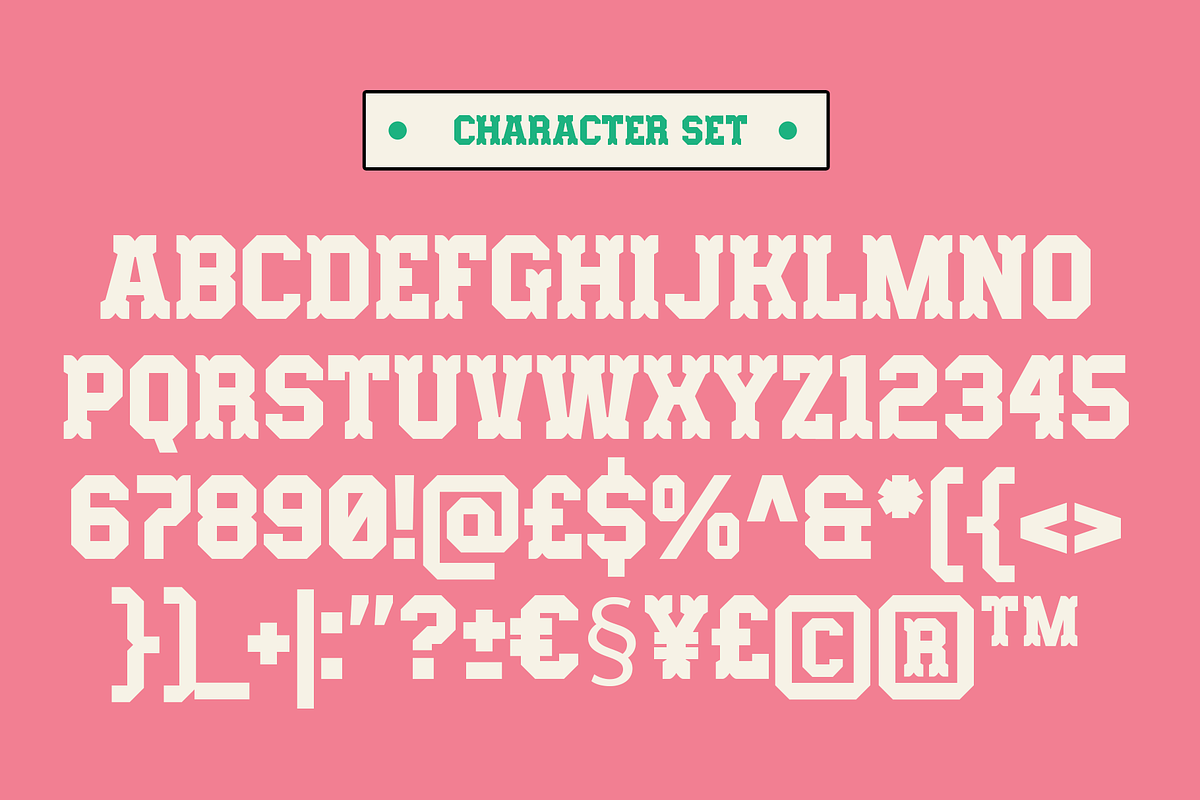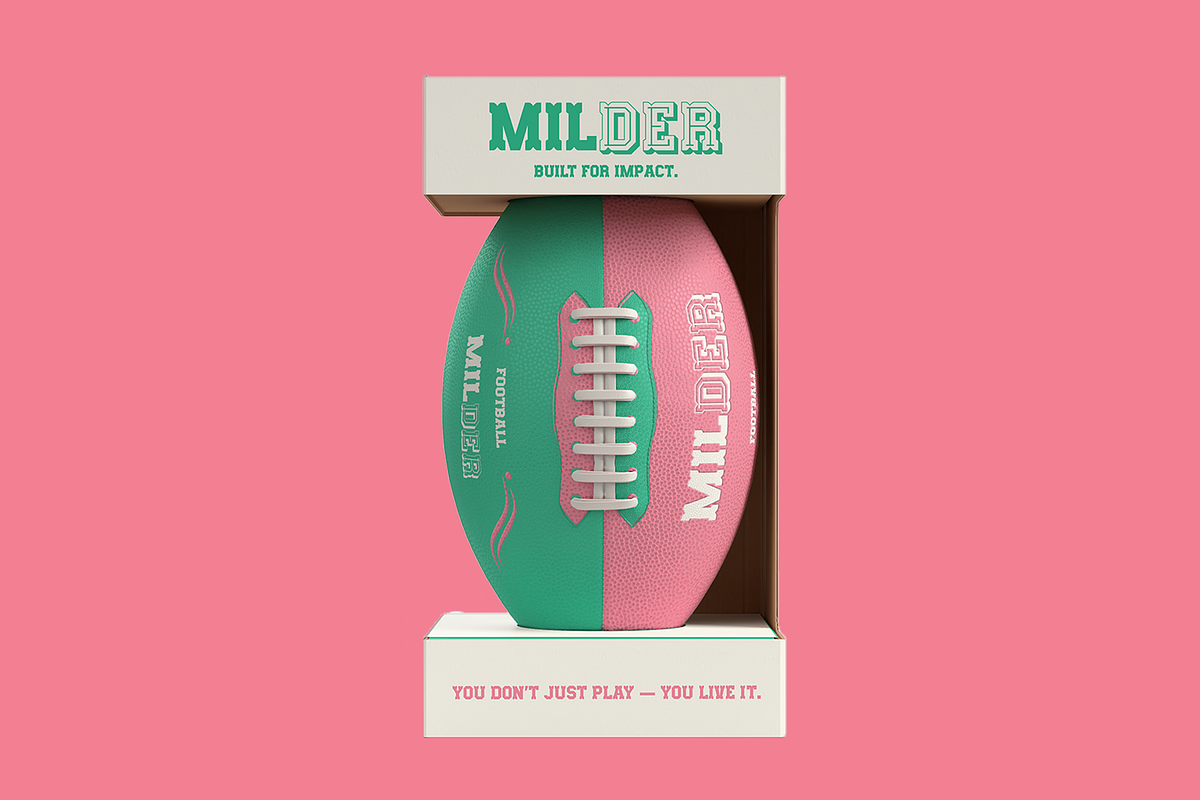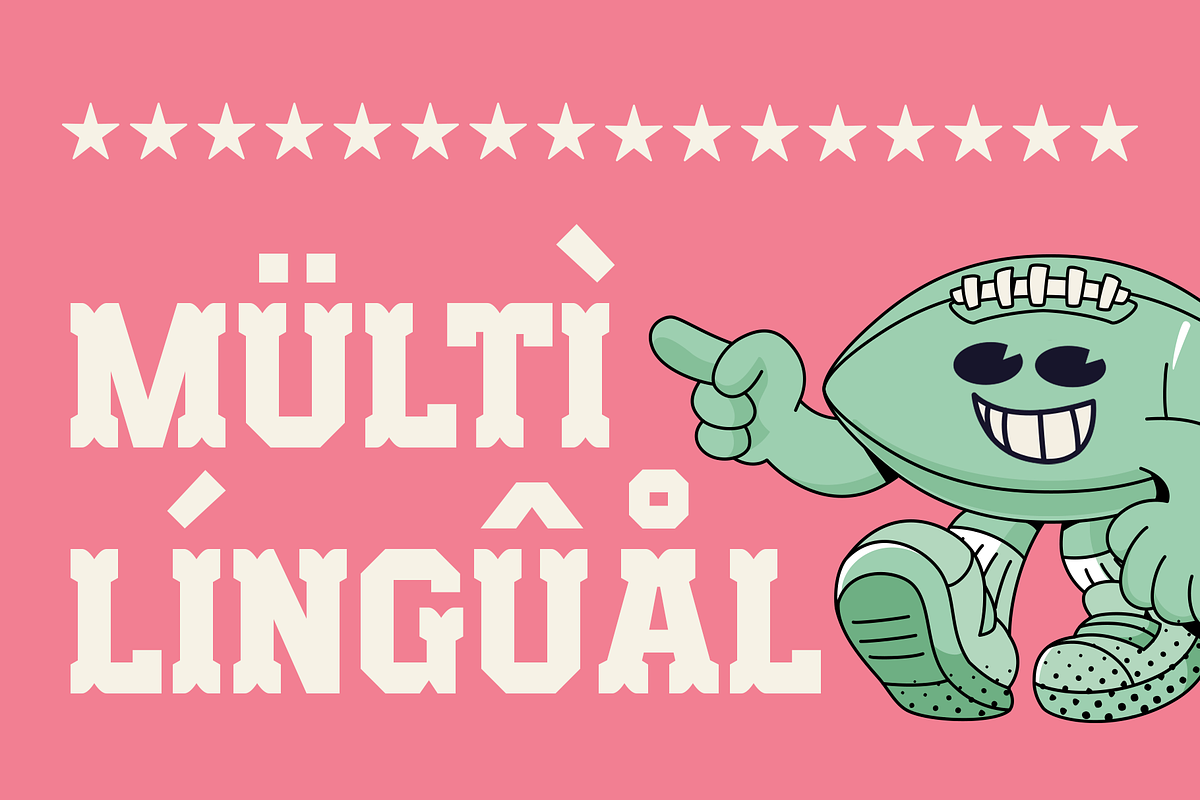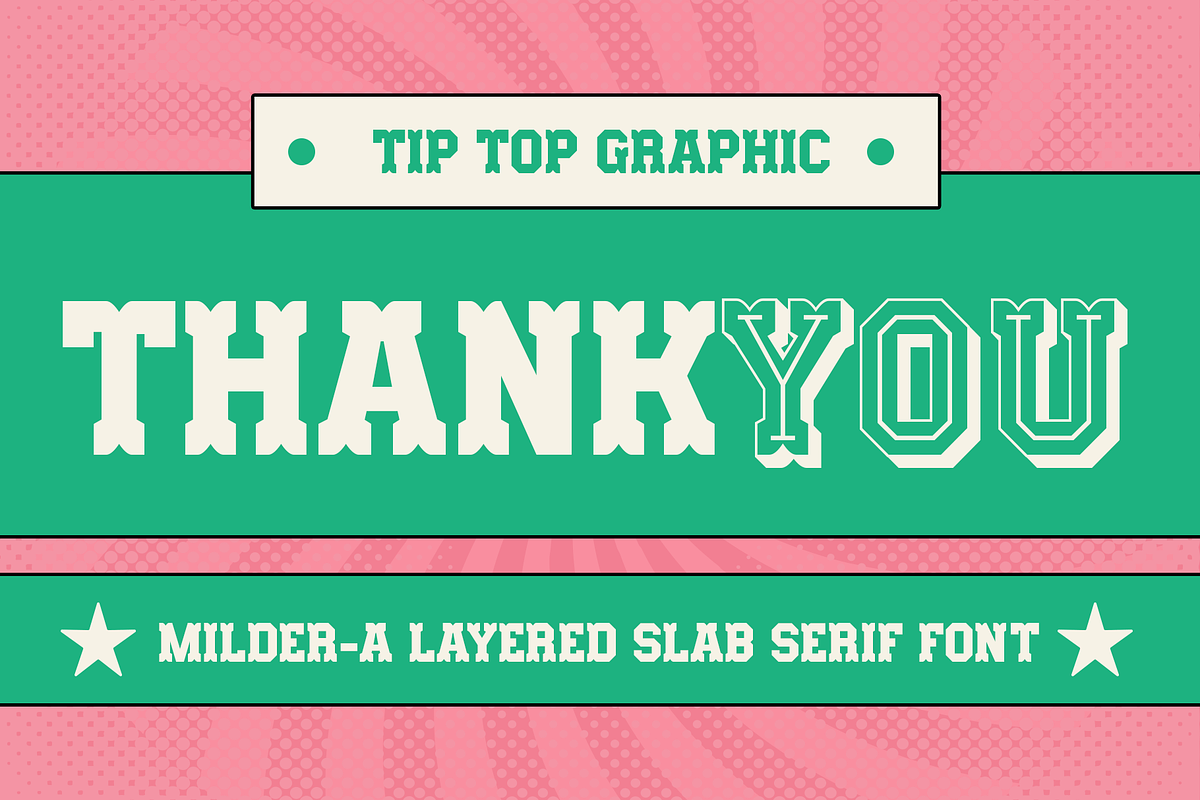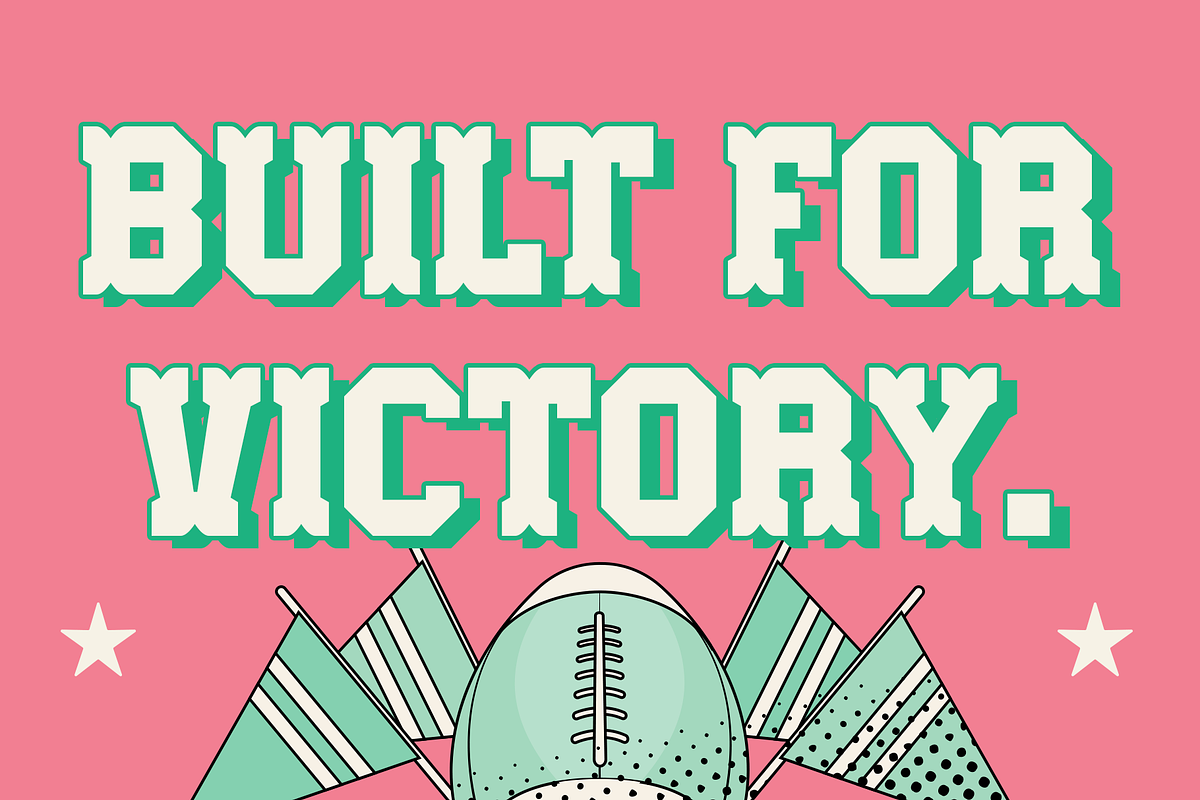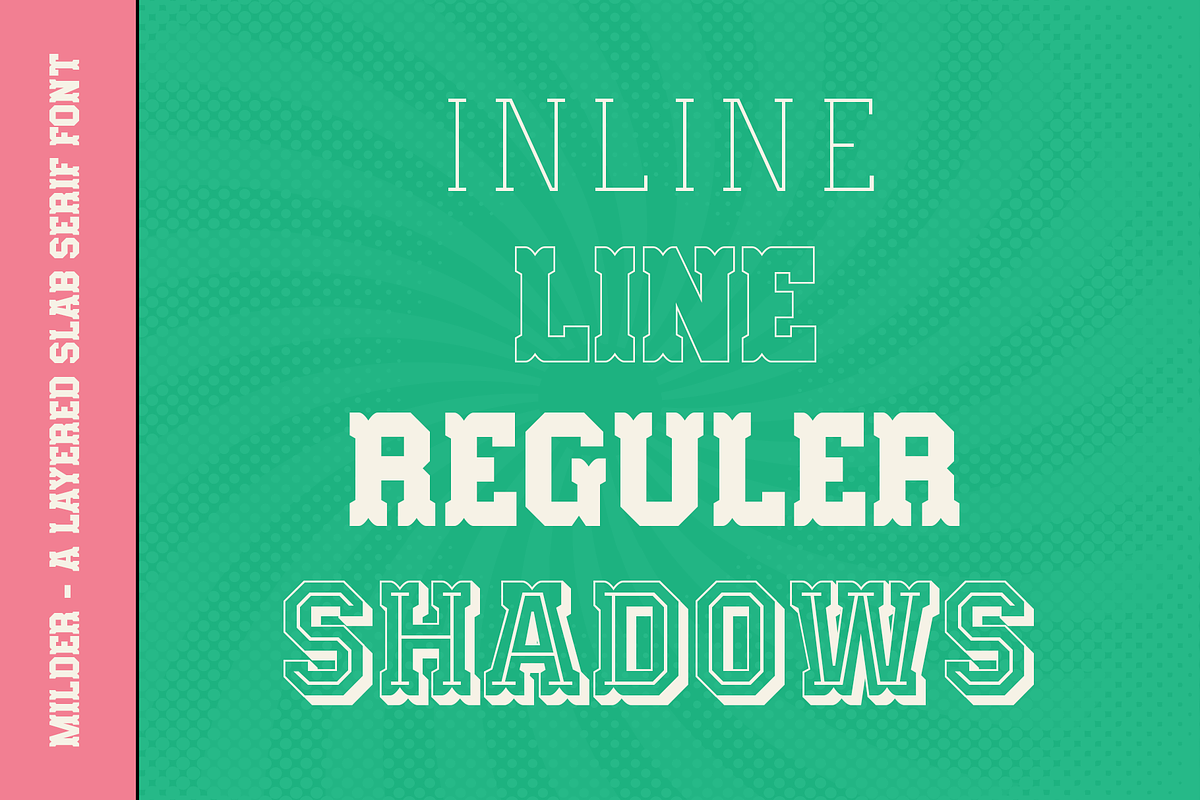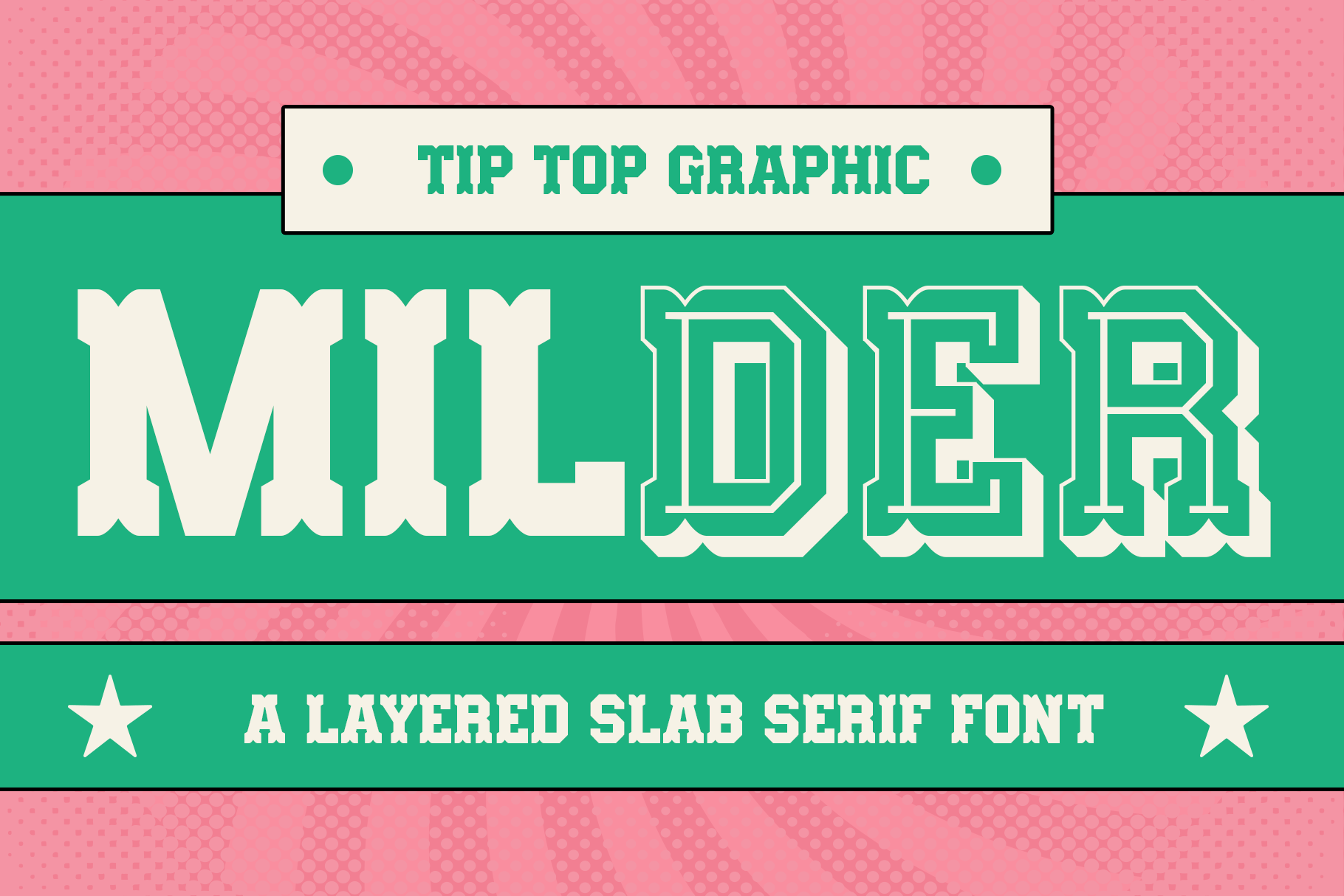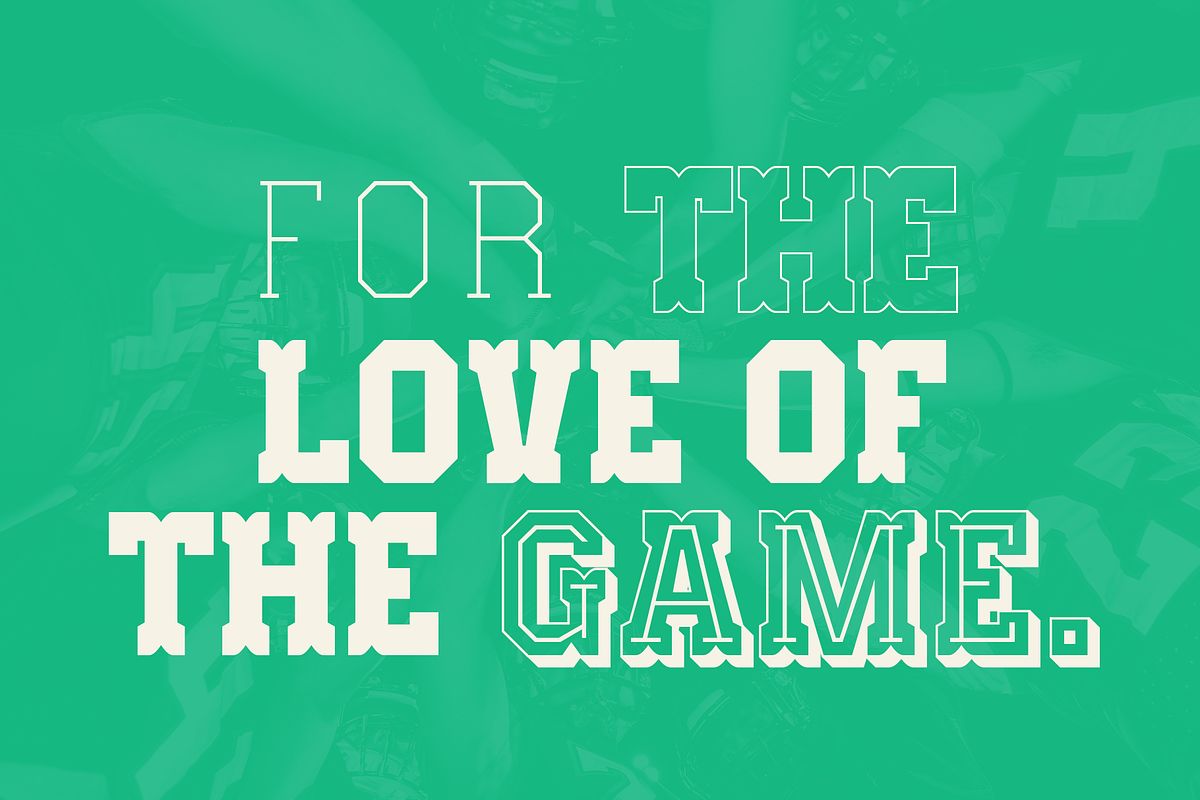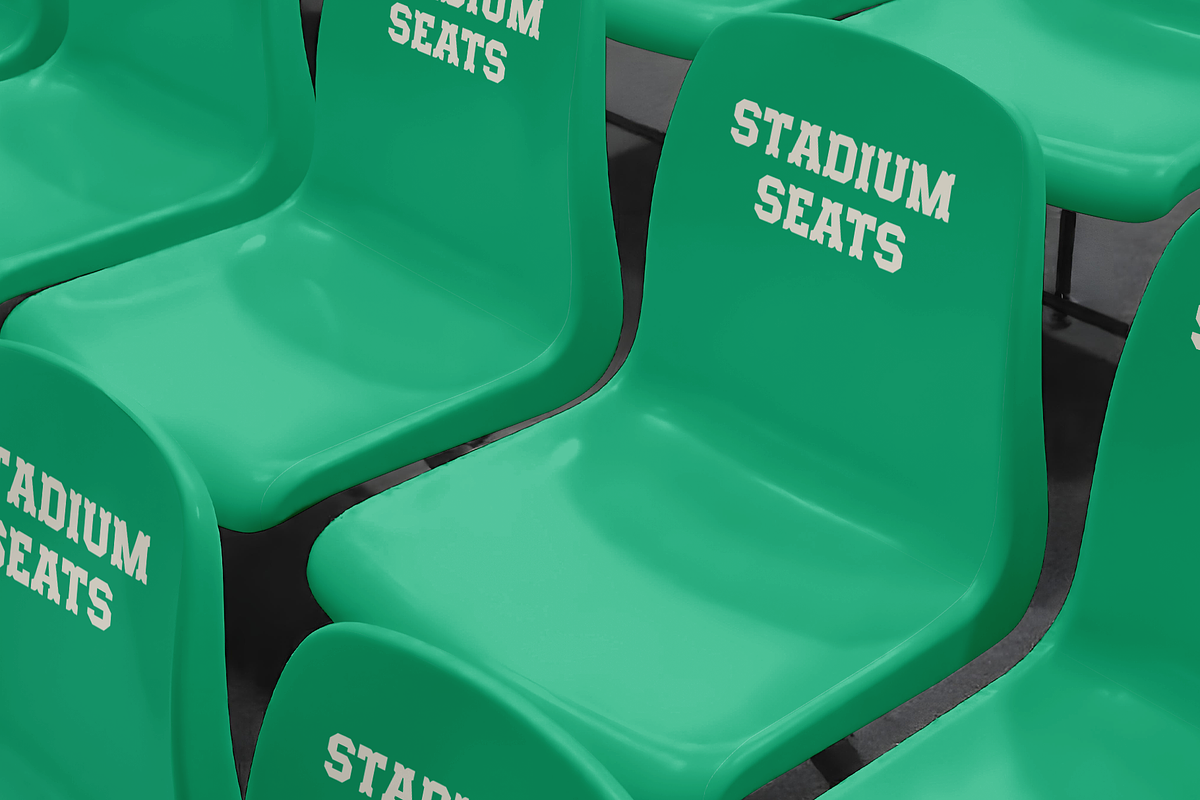
Milder - A Layered Slab Serif Font
Milder – A Layered Slab Serif Font brings bold retro energy to your designs. With stacked layers and chunky slab-serif details, this font gives you a classic vintage look with a modern twist. Perfect for logos, posters, packaging, stickers, and any project that needs a standout retro feel.
Milder - A Layered Slab Serif Font features:
- Character Set
- Punctuation & Numbers
- Variable: Inline, Line, Regular, Shadow